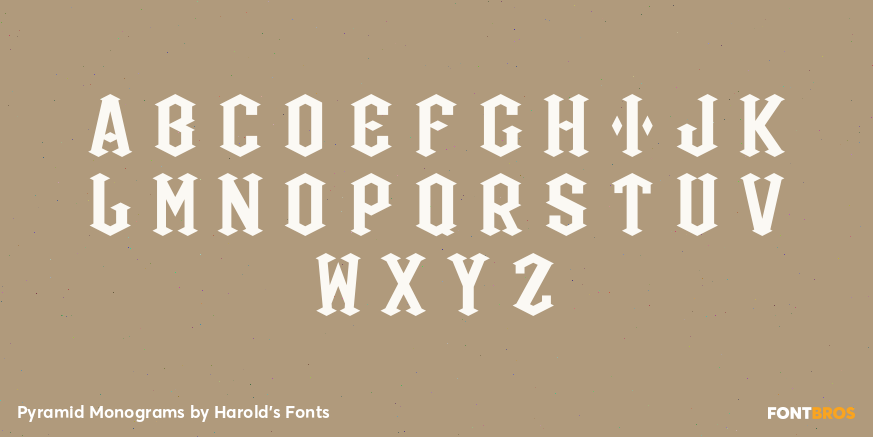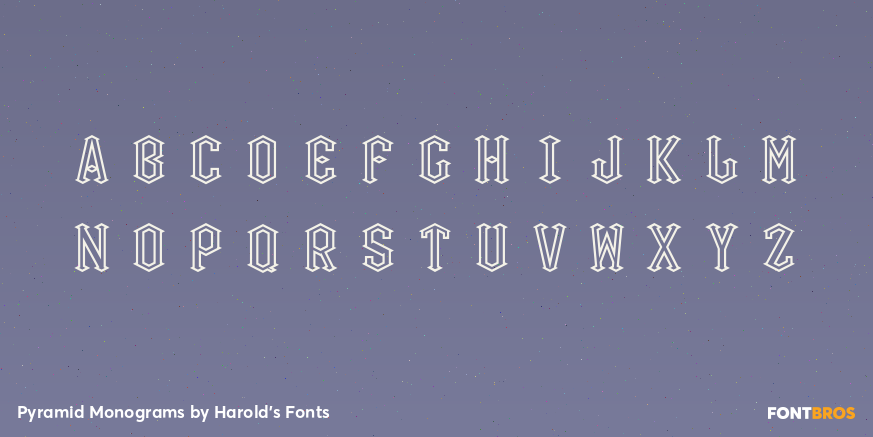
Pyramid Monograms
Font Family by Harold's Fonts
PYRAMID MONOGRAMS is a set of 3 fonts that lets you make custom 3-letter monograms in a bold and distinctive style featuring diamonds and triangles. The set includes Solid and Outline fonts and 2 mixed fonts. Each font has a choice of decorative frames and other elements you can use to further customize your monograms.